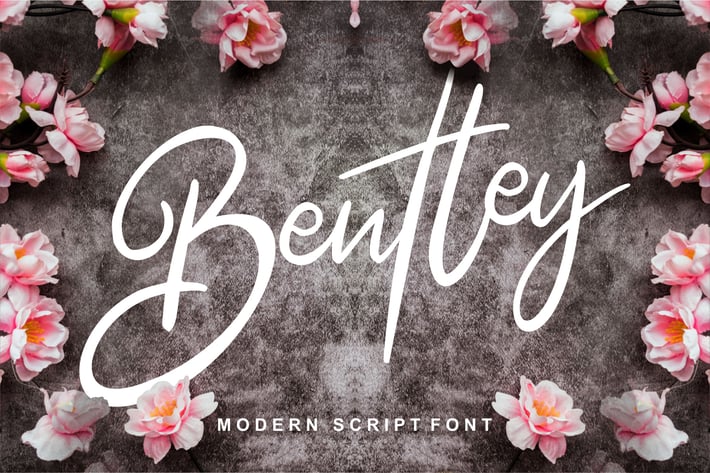
Bentley | Modern Script Font
Bentley | Modern Script Font with a calligraphy style, So beautiful on invitation like greeting cards, branding materials, business cards, quotes, posters, and more!